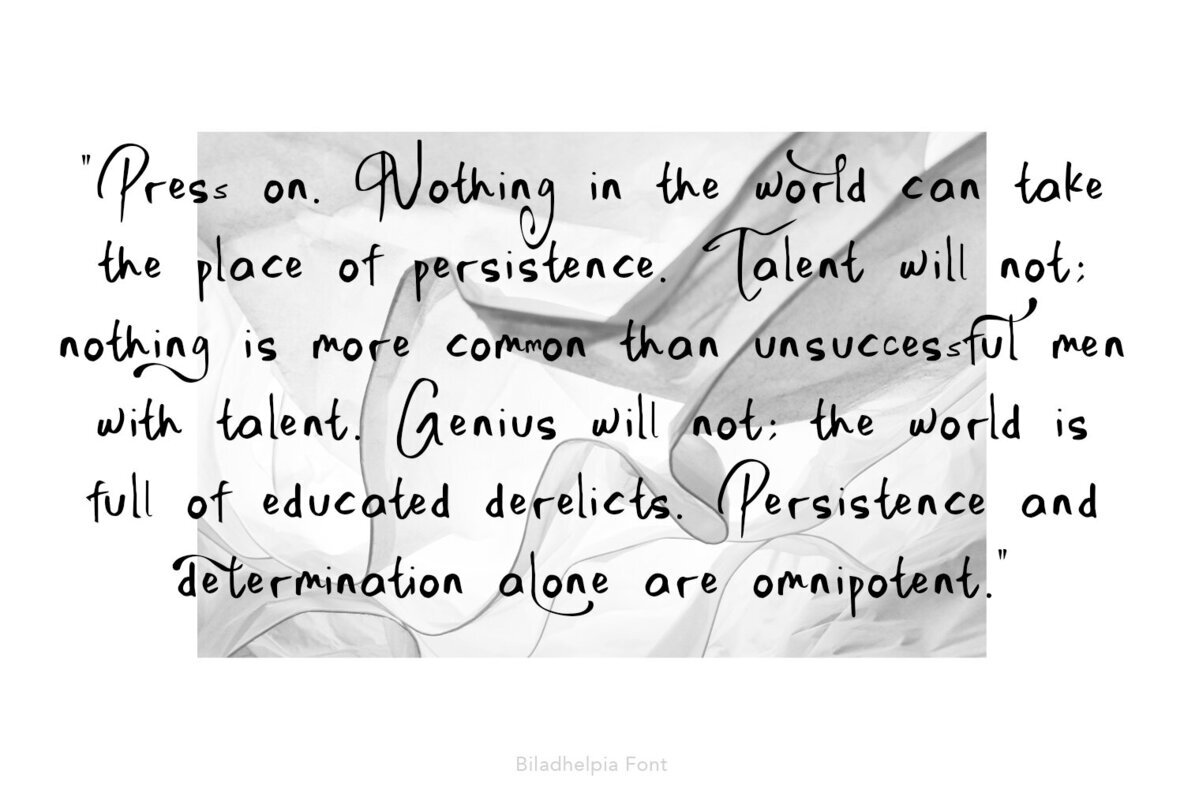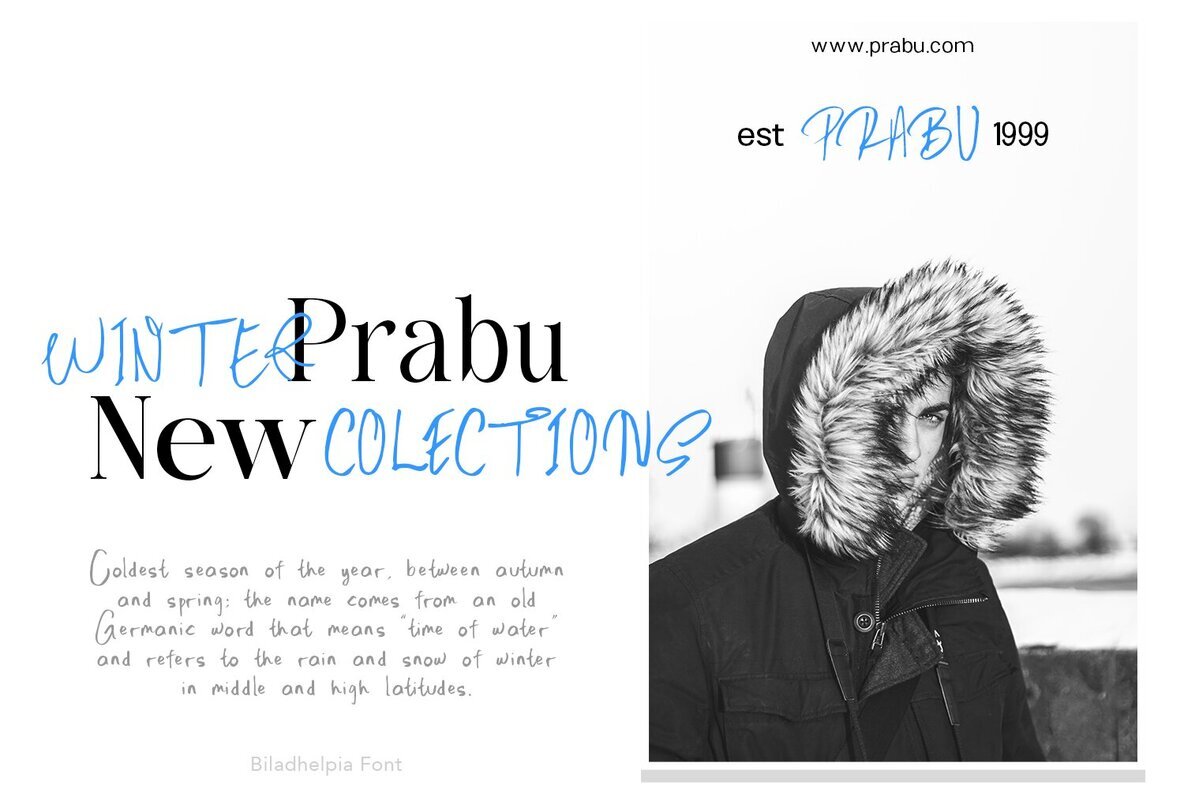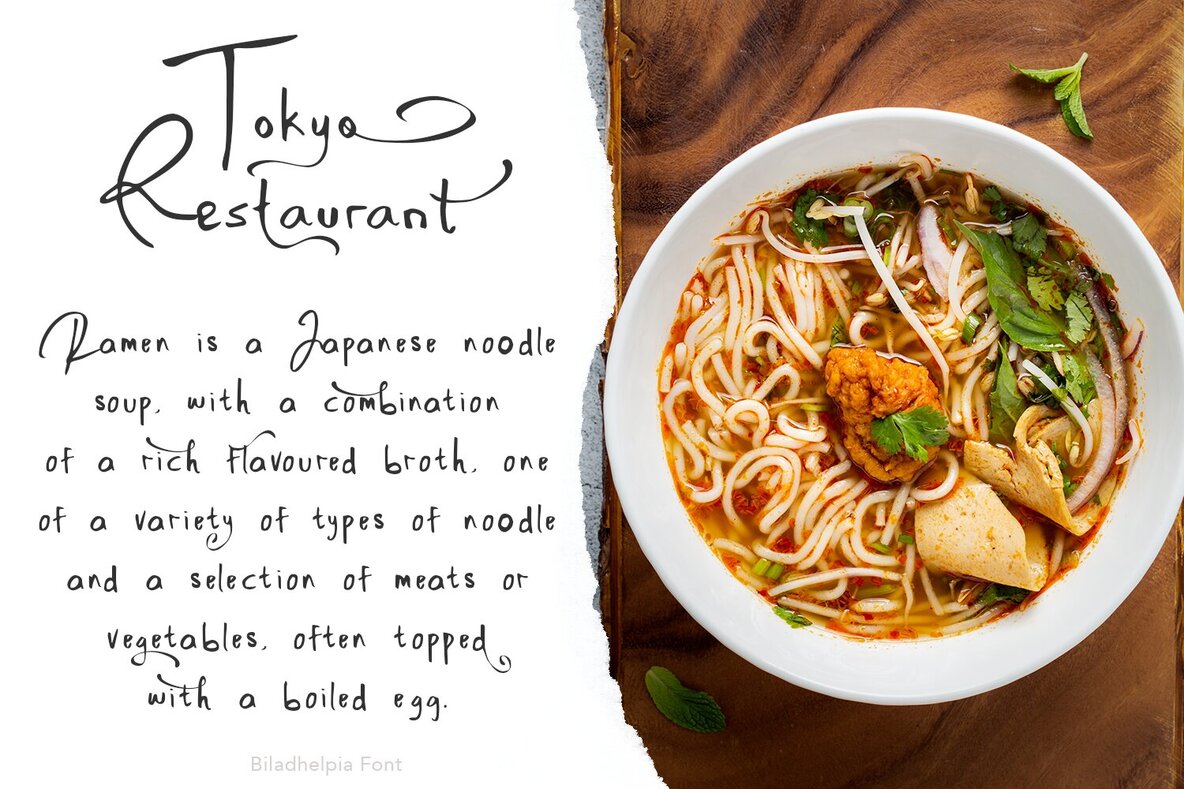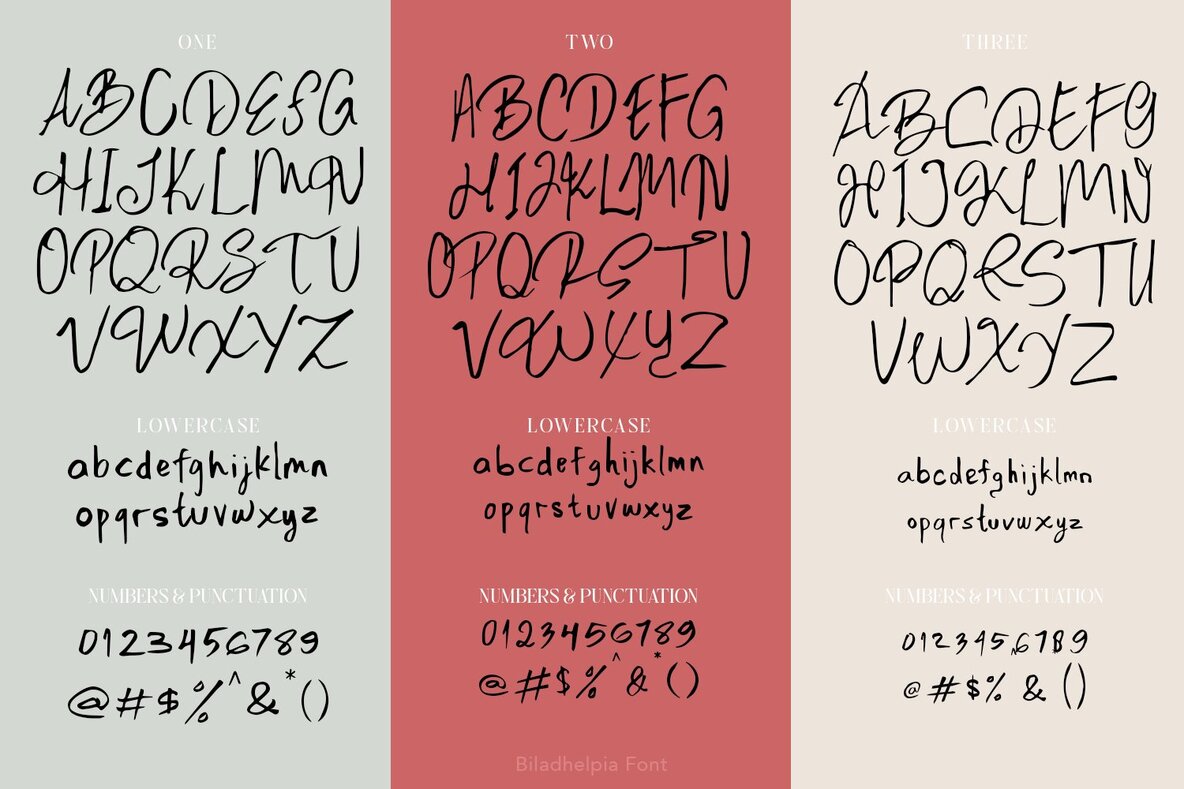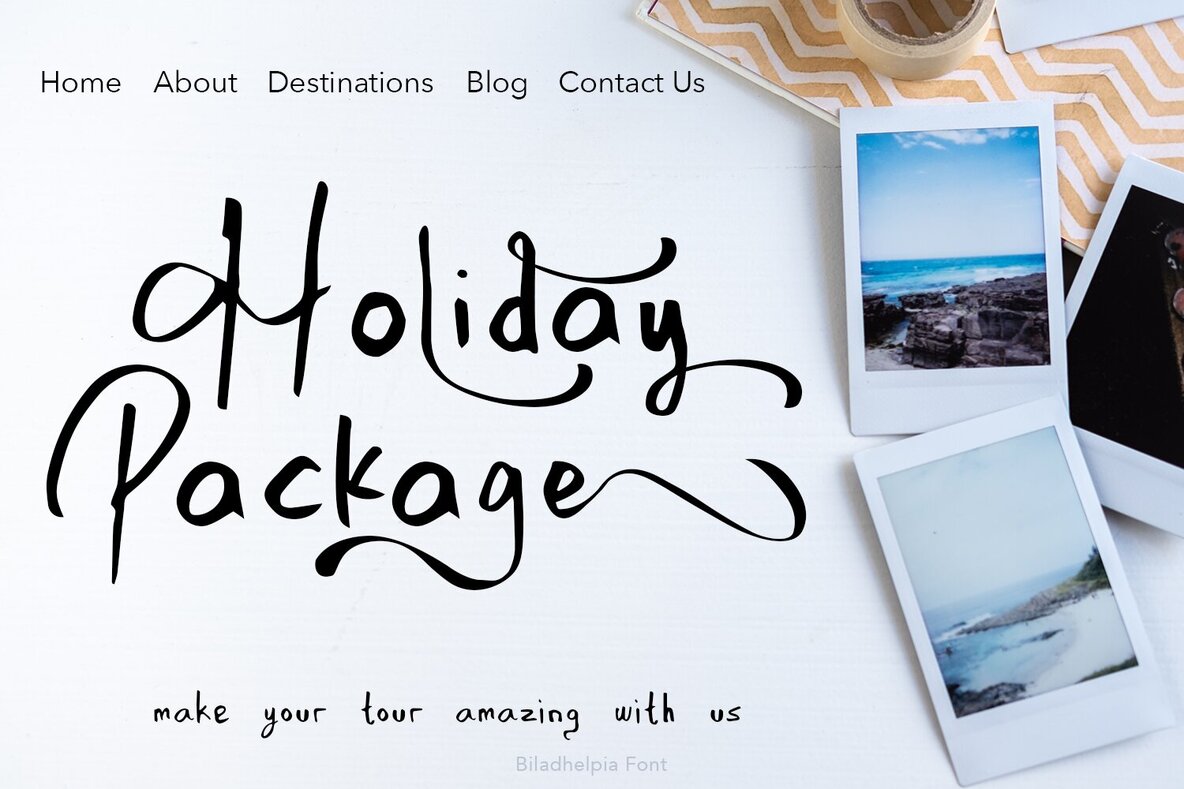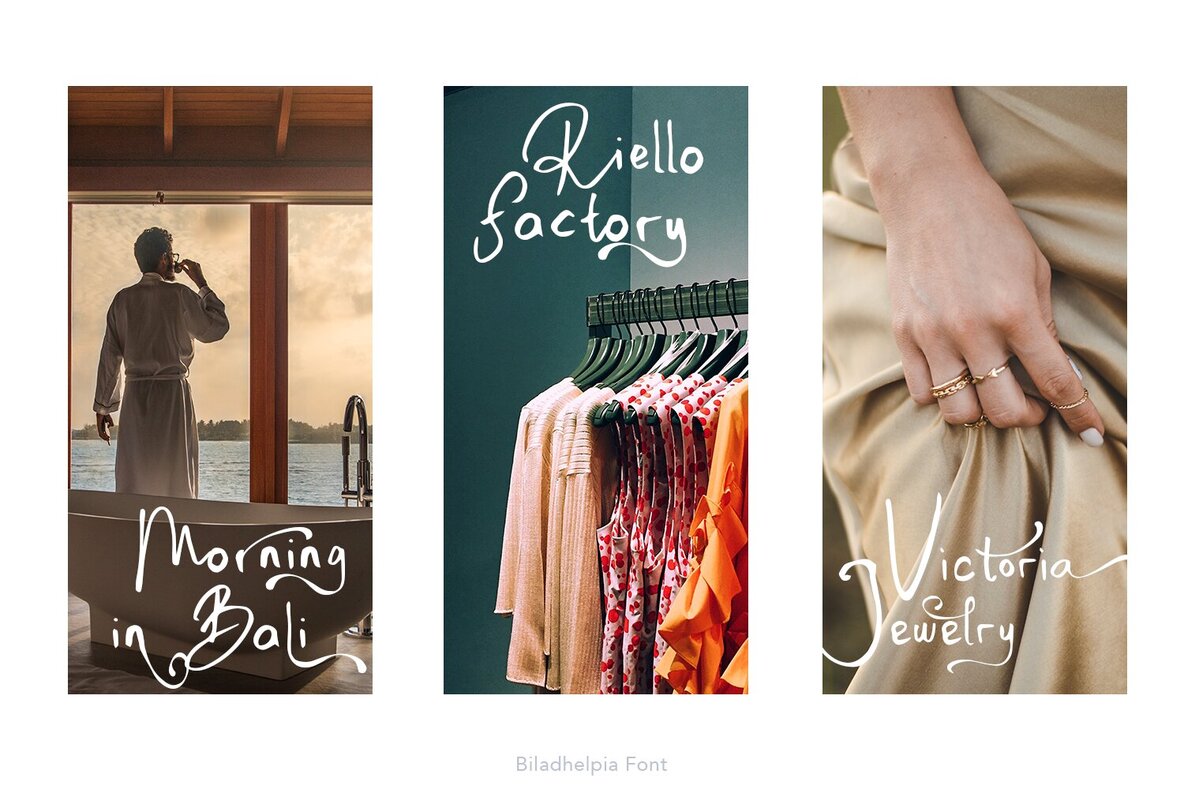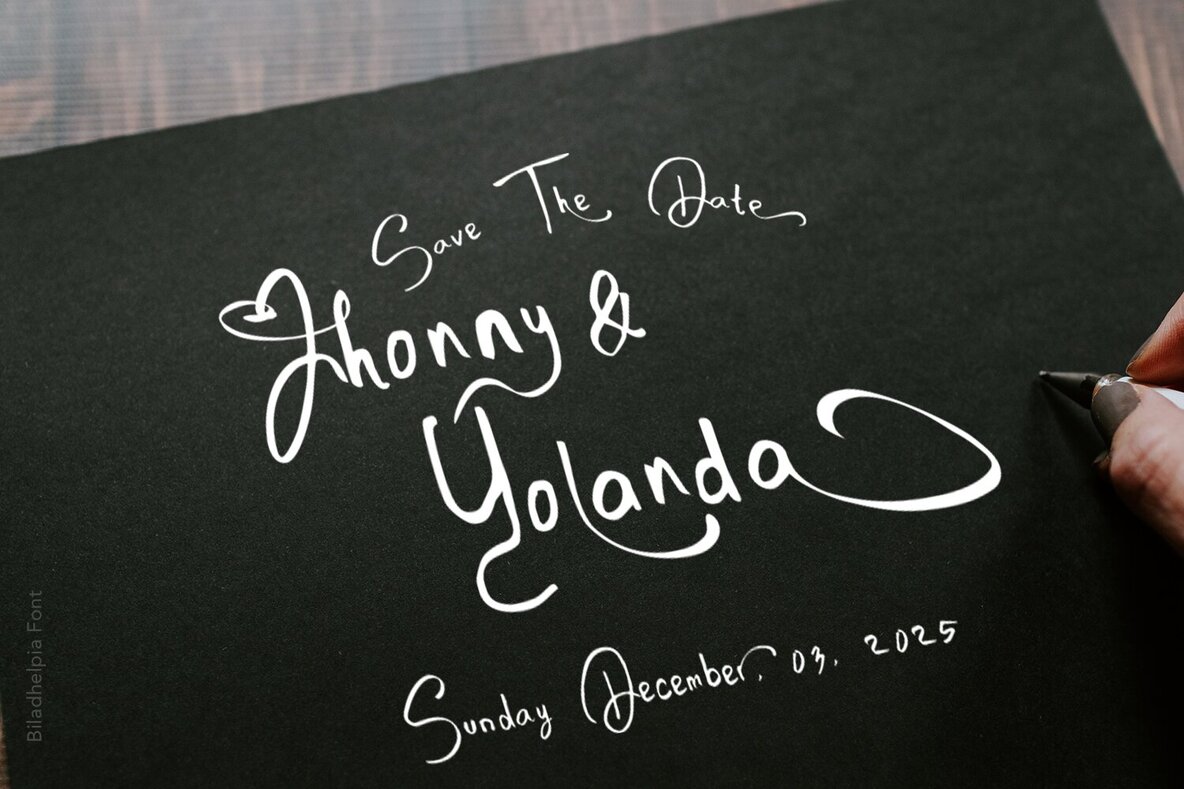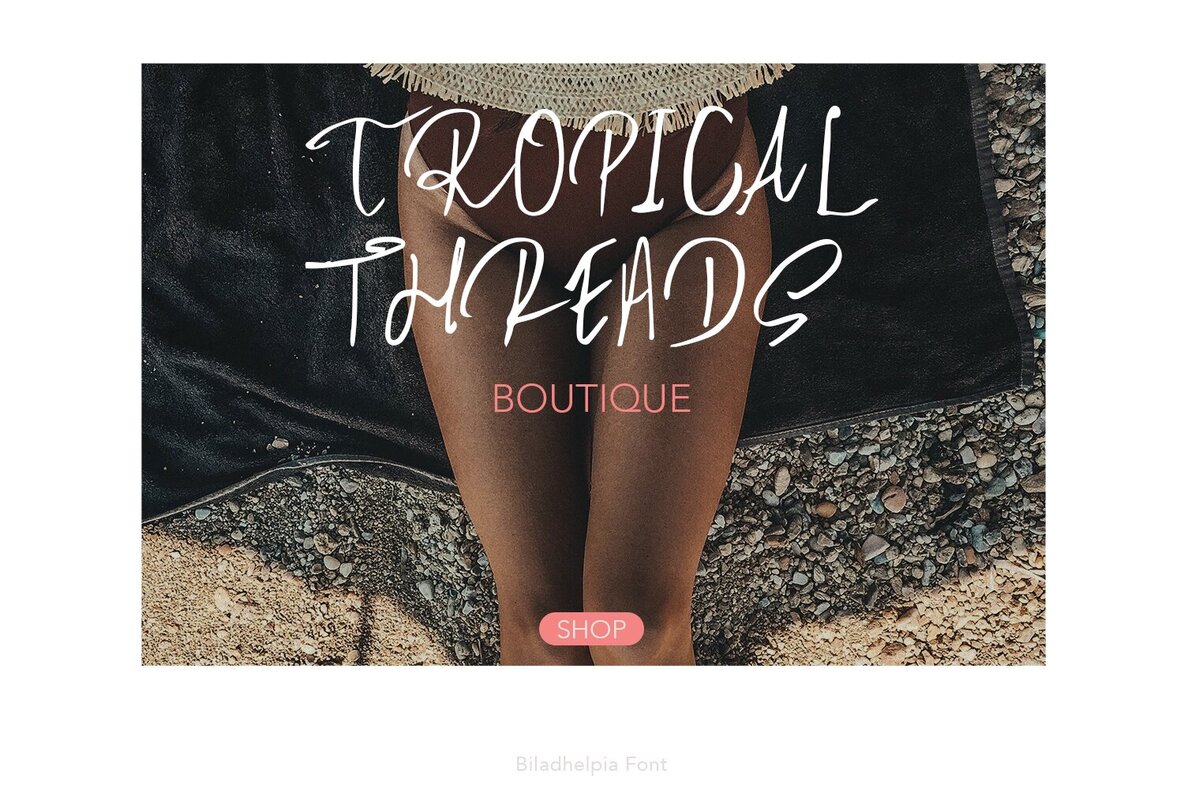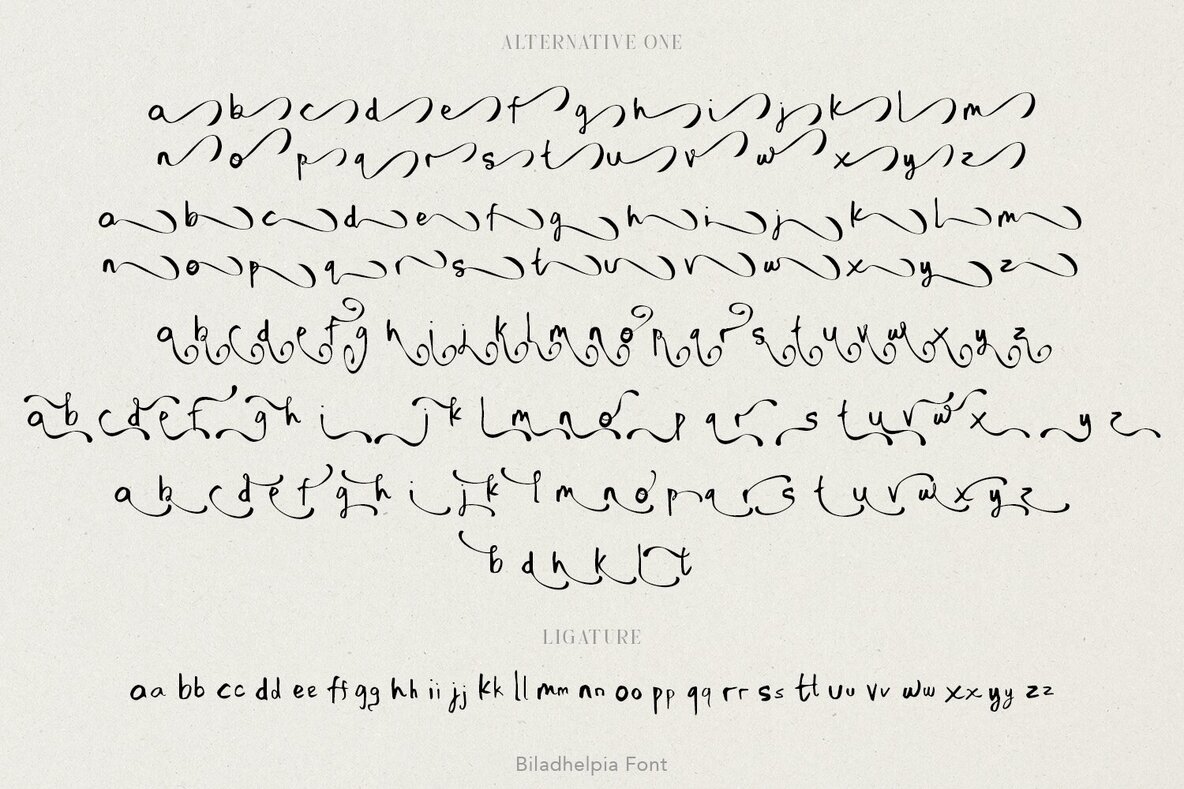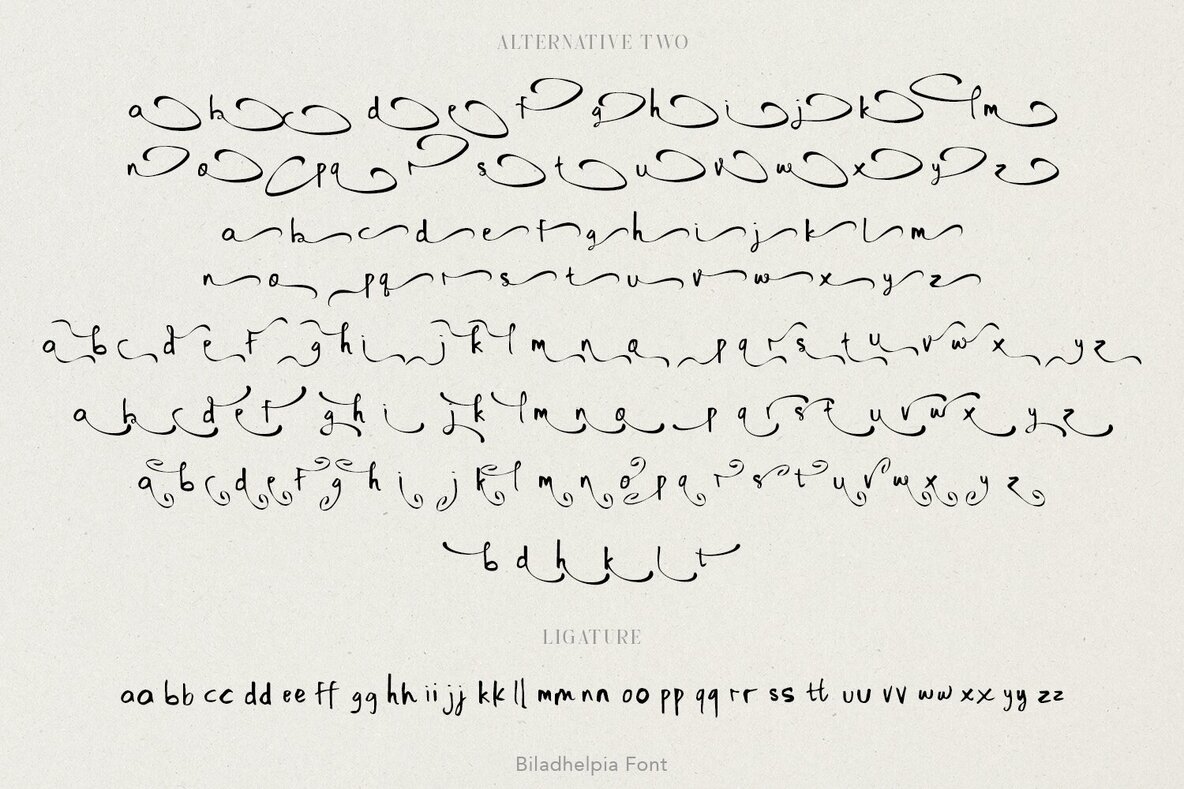
Biladhelpia Font
Biladhelpia One
Biladhelpia Three
Biladhelpia Two
Introducing Biladhelpia is a bundle handwritten font with three version and come with a lot alternative and ligature and will be perfect for book, title branding, product packaging, invitation, quotes, label, poster, logo etc.